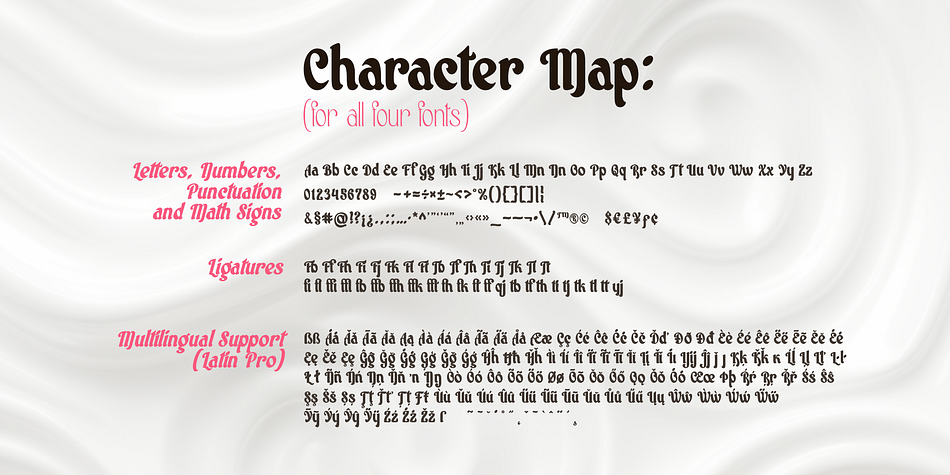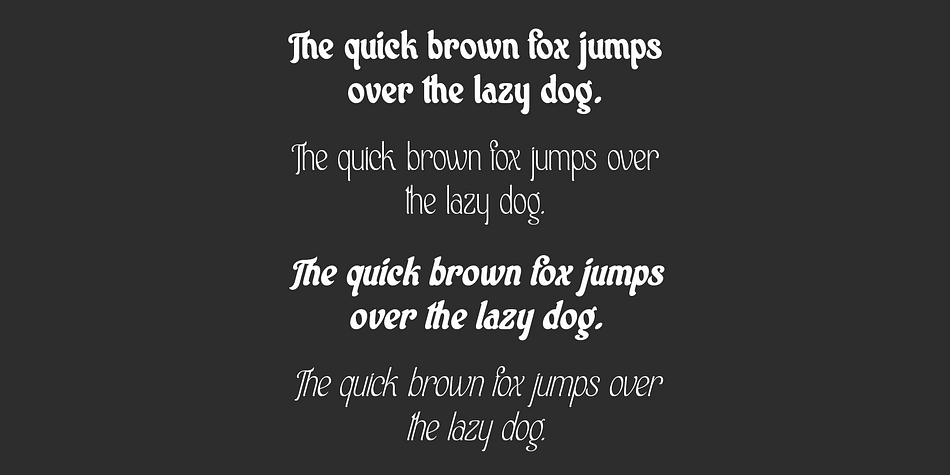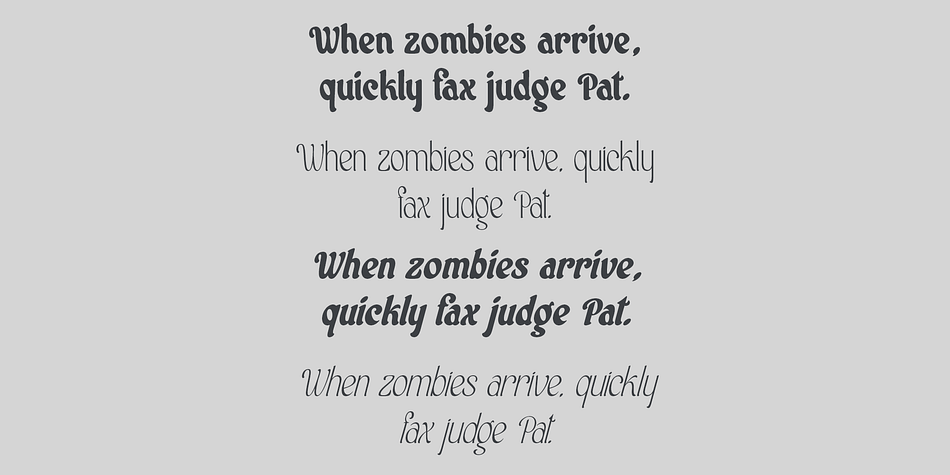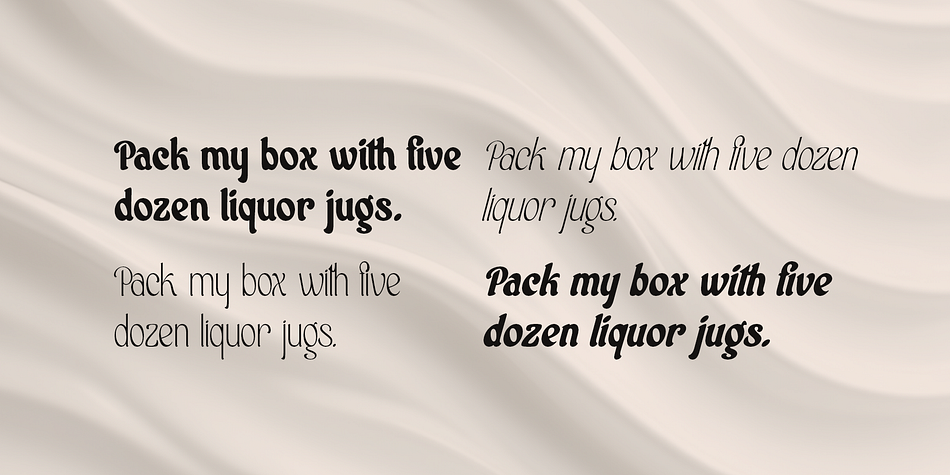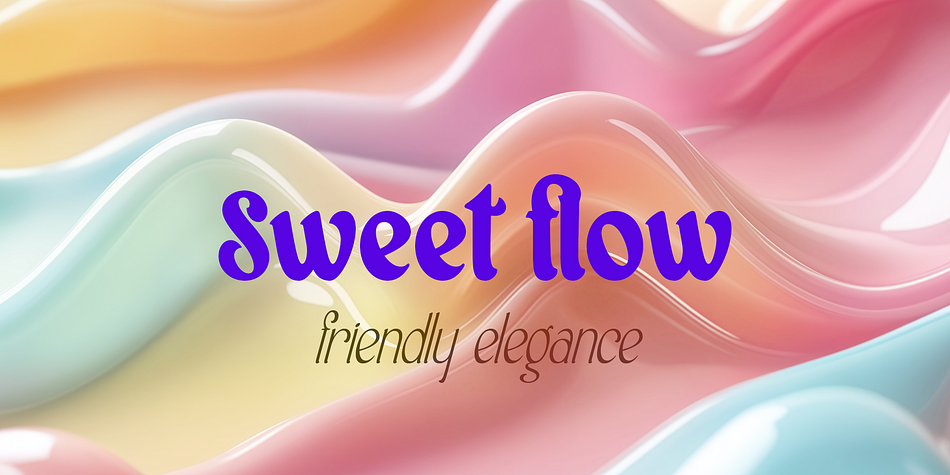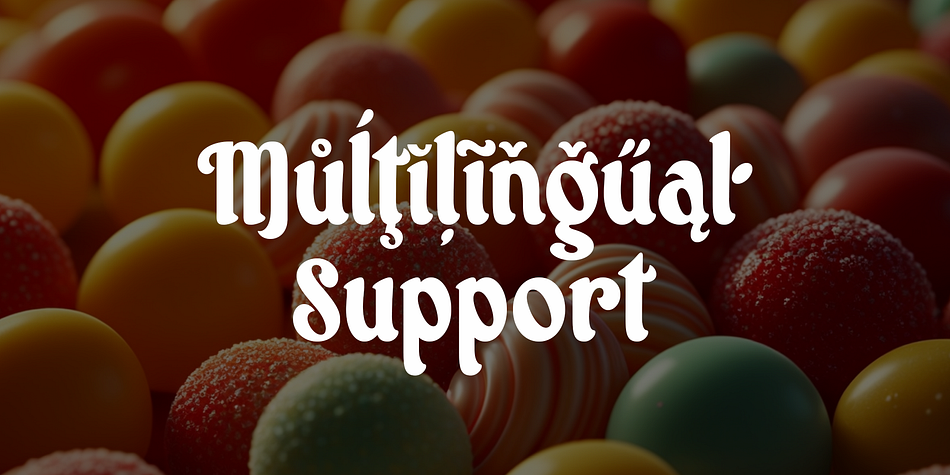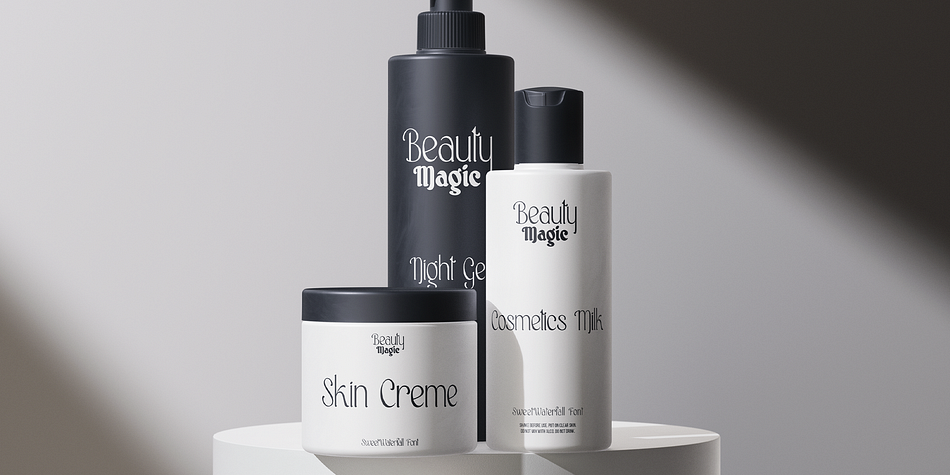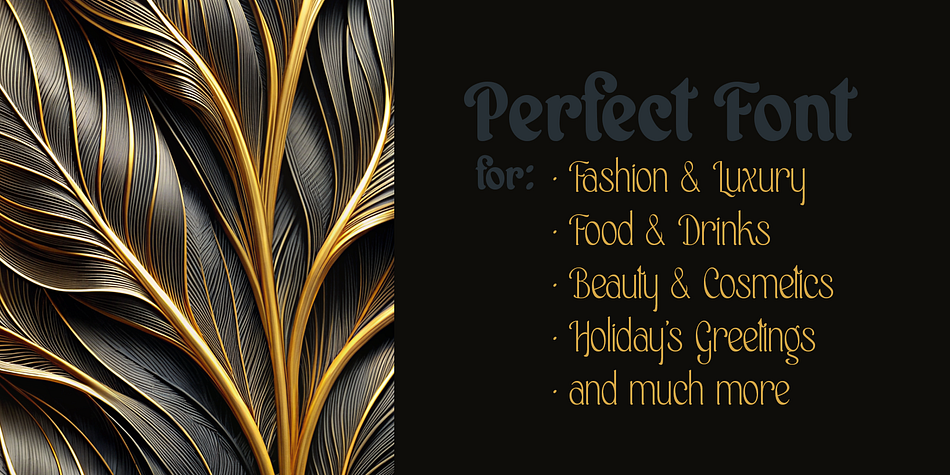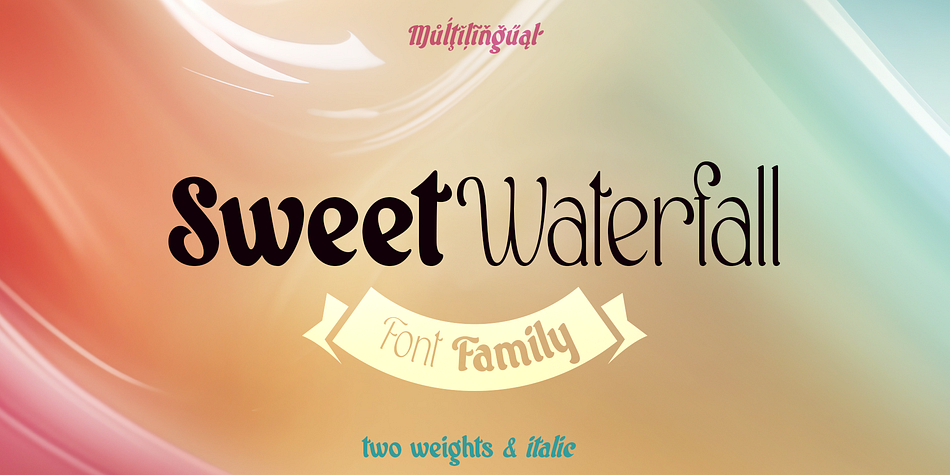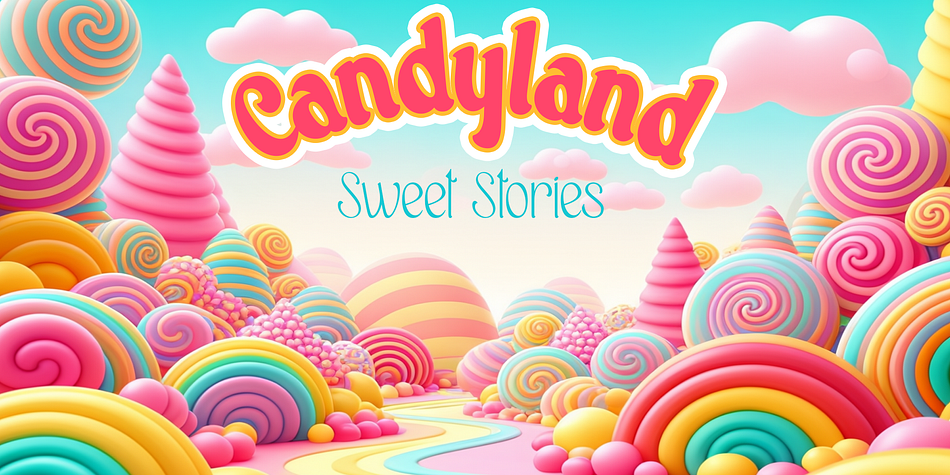
Sweet Waterfall
Sweet Waterfall is a brush script font family. This typeface has four styles and was published by Sentavio.
Sweet Waterfall is calligraphic elegant friendly font family consists of four fonts:
- Regular
- Italic
- Light
- Light Italic
It is interesting looking as Headline and Text both.
It is perfect in such areas as:
- Holiday’s Greetings
- Luxury & Fashion
- Food & Drinks
- Beauty & Cosmetics
and much more.